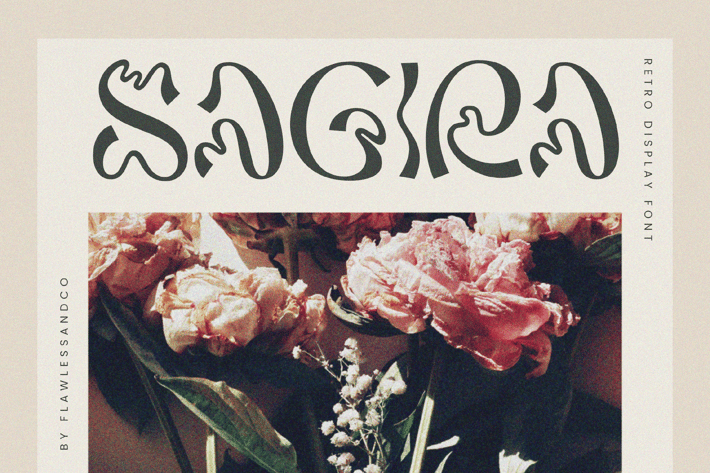
Sagira Retro Display Font
Flawlessandco
Introducing "Sagira" - A Retro Display Font. Travel back in time with "Sagira," a nostalgic retro display font that pays homage to the past, complete with charming wavy line details that evoke a sense of vintage flair. With its unique character and retro charm, "Sagira" is designed to infuse your projects with a touch of yesteryear's style. This font is suitable for any graphic design such us, branding materials, t-shirts, logos, posters, business, fashion, and others.